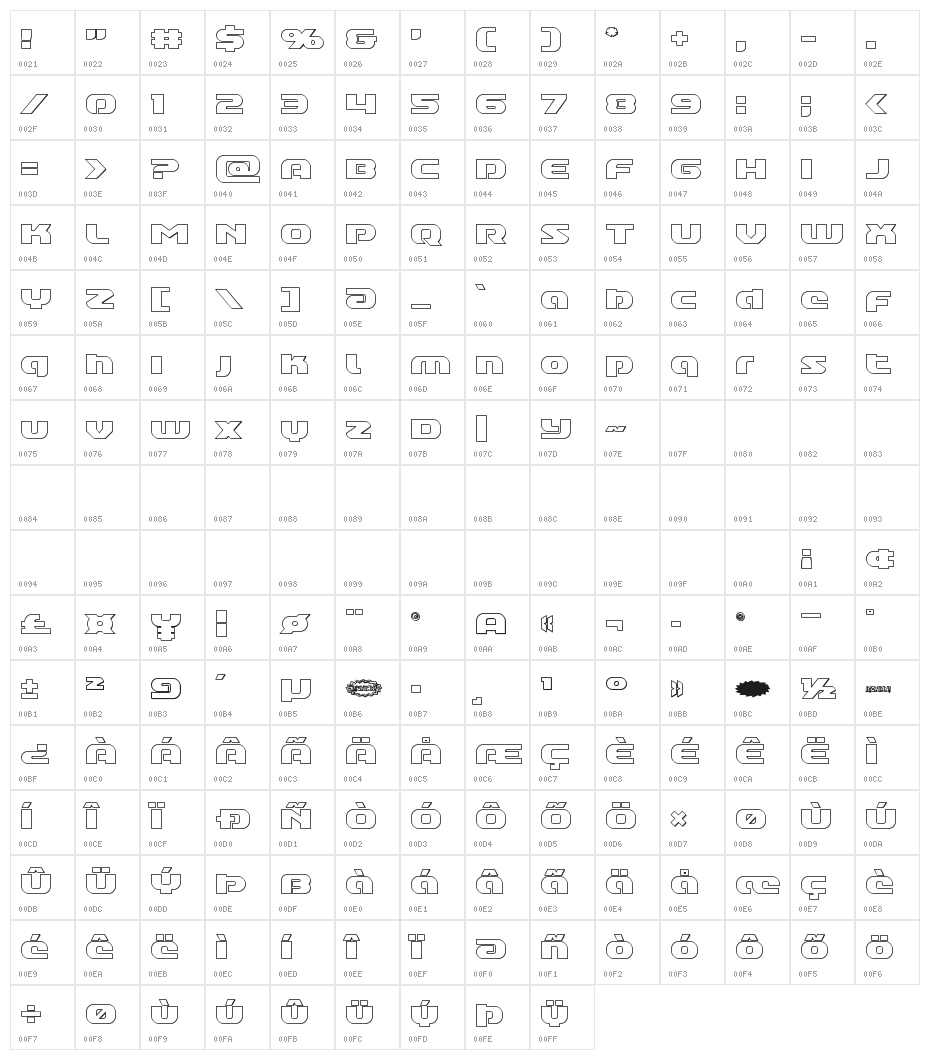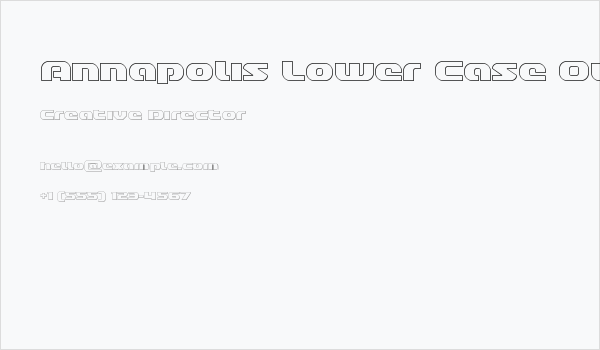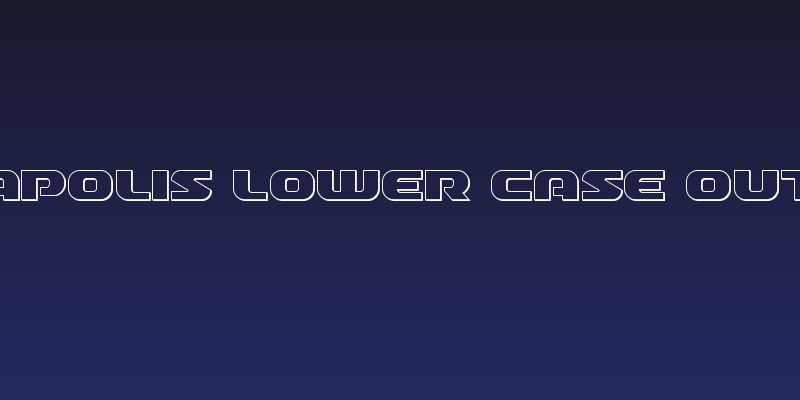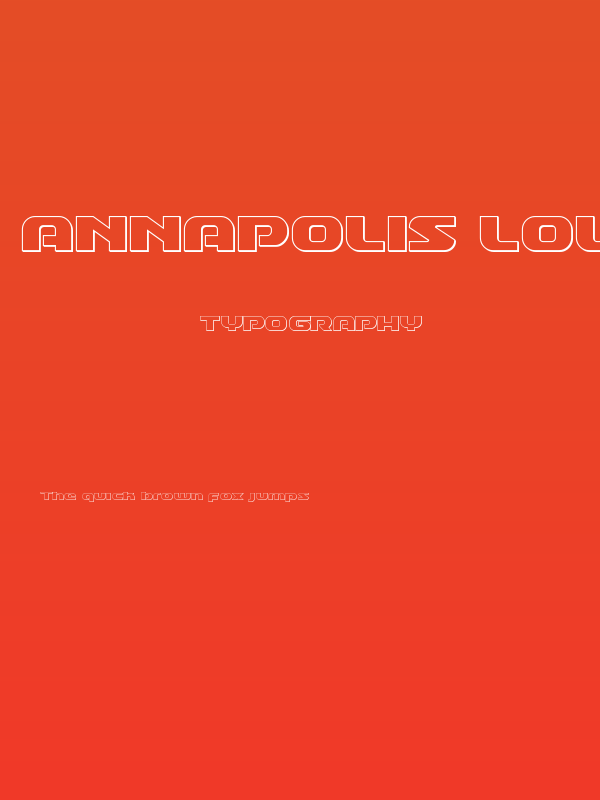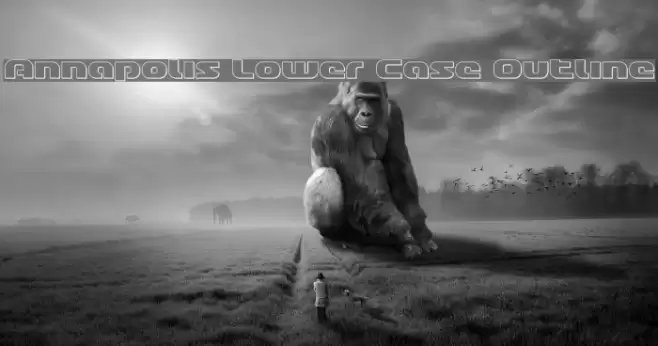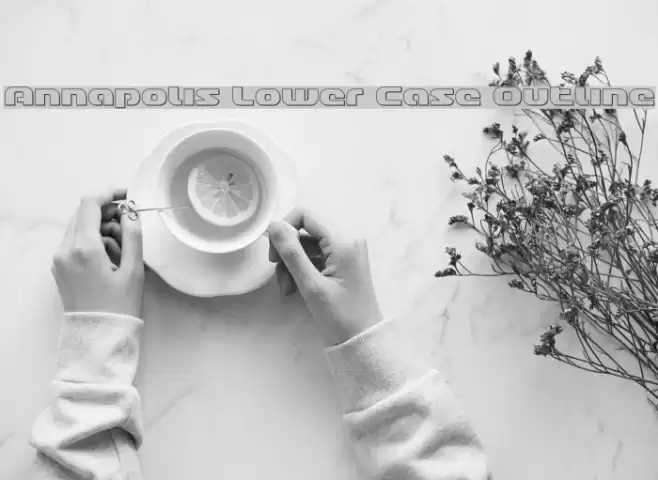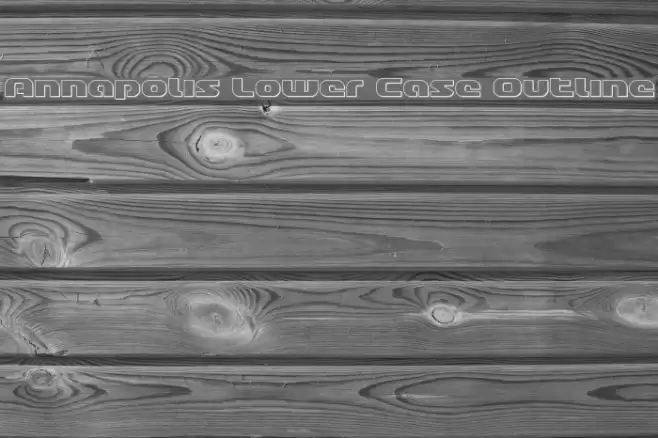
Annapolis Lower Case Outline Font
Annapolis Lower Case Outline Description
This font features a bold, geometric outline style with a futuristic and modern aesthetic. Each character is crafted with clean lines and sharp angles, creating a sense of precision and clarity. The uppercase and lowercase letters maintain a consistent width, giving the font a uniform appearance. The numbers and special characters follow the same design principles, ensuring a cohesive look across all elements. The outline style adds a unique dimension, making it stand out in various design applications.
| Proposed Projects | Ideal for branding, posters, and digital media where a modern and eye-catching design is desired. |